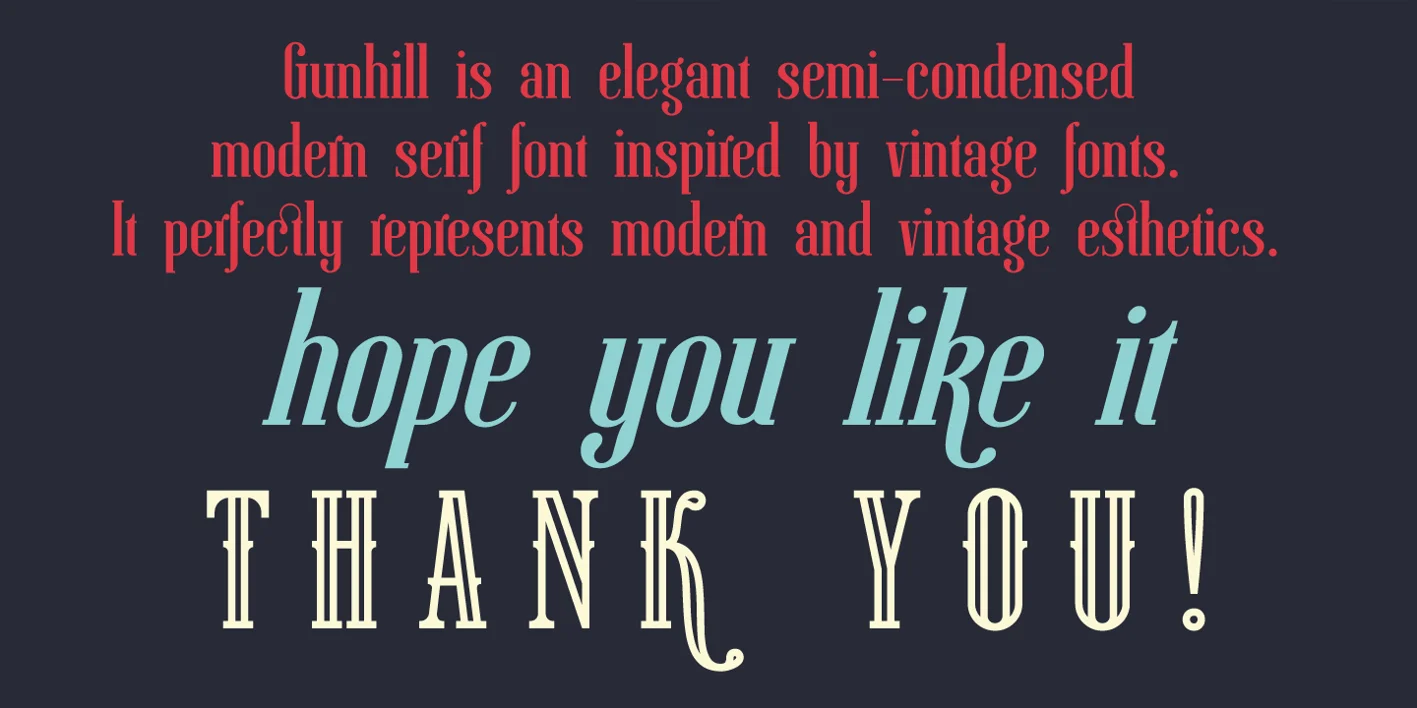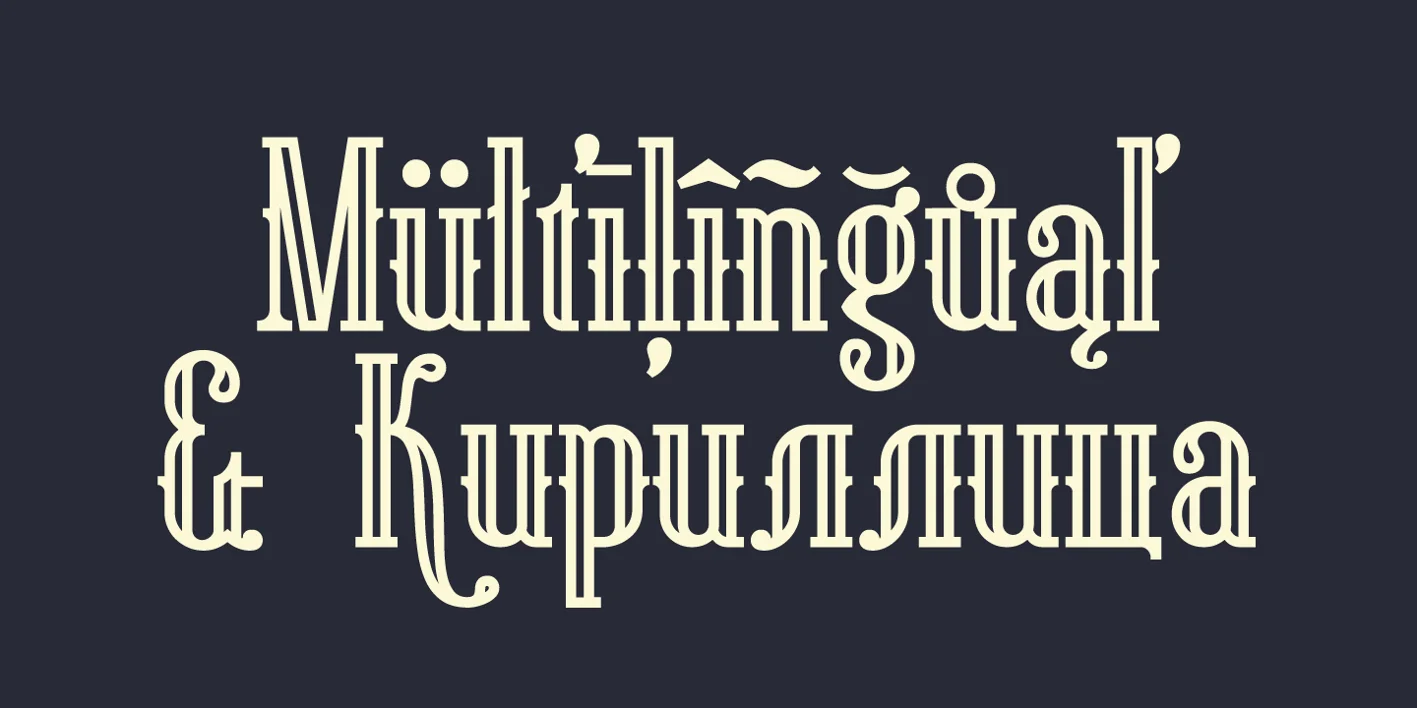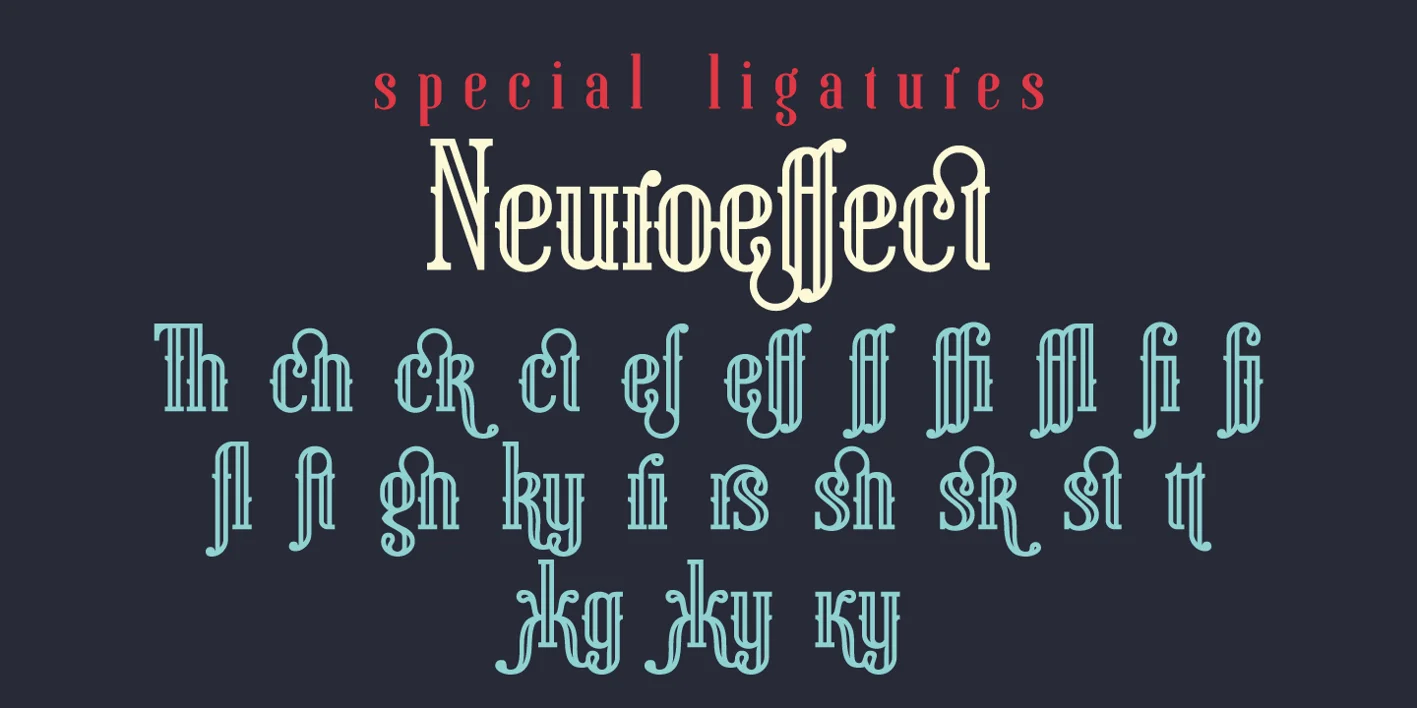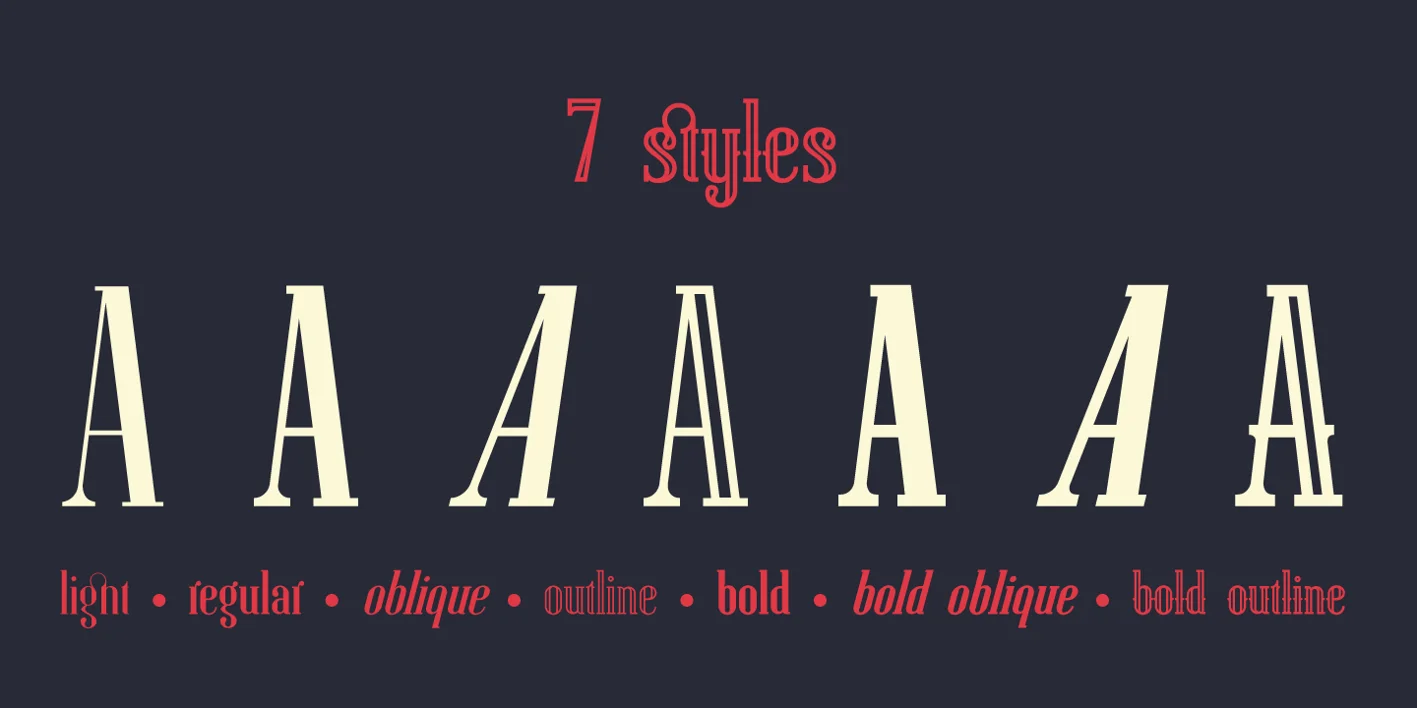
Gunhill Font
Few typefaces manage to balance optical balance across all weights with genuine day-to-day practicality. Gunhill is one of them. The typeface brings a versatile sensibility to a broad range of creative disciplines, with a confident voice that adapts to diverse briefs that holds up whether the work is print-first or screen-first.
In practice, Gunhill proves particularly effective for advertising campaigns, brand identity systems, social media graphics, editorial layouts, product labels. Designers reaching for it find that the type decisions feel resolved rather than laboured — a useful quality when client timelines are tight.
The range of applications extends to annual reports, logo design, poster creation, environmental graphics. That breadth is deliberate: the proportions and spacing were stress-tested across a wide range of mock briefs before the typeface was finalised.
The consistent rhythm of Gunhill across a full paragraph creates the kind of even grey value that makes extended reading comfortable, a detail that matters more in long-form content than its subtlety might suggest.
Independent studios handling packaging and editorial work find Gunhill a reliable choice for projects that demand both personality and restraint. The design avoids the self-conscious quirkiness that dates quickly, settling instead for considered distinctiveness that holds up over time.